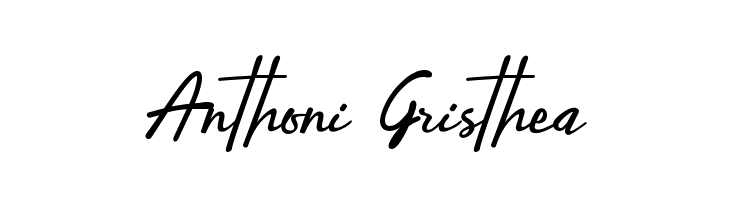
A dynamic and flowing script font with elegant cursive letterforms.
A fluid and elegant script font with a handwritten appearance.
An elegant script font with flowing, decorative swashes and high contrast strokes.